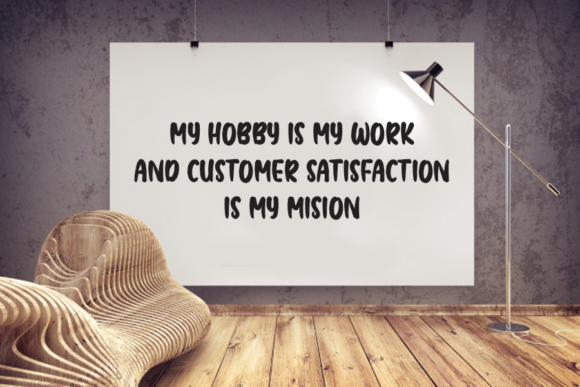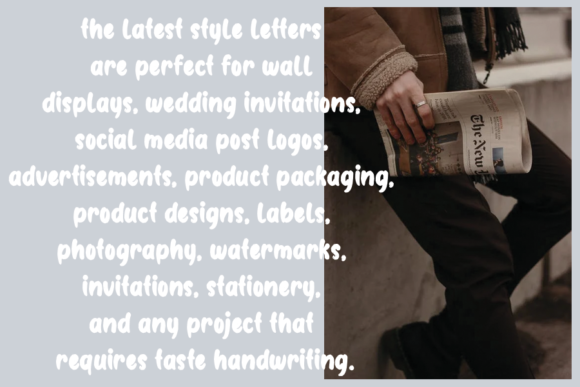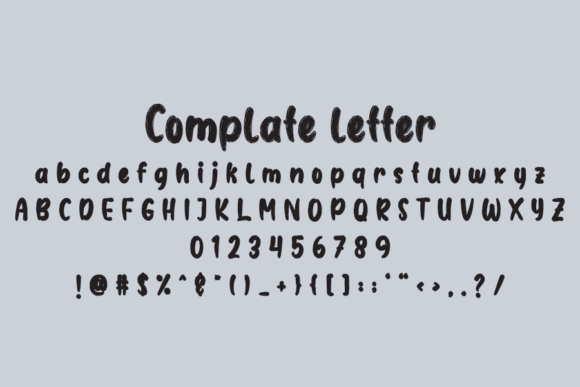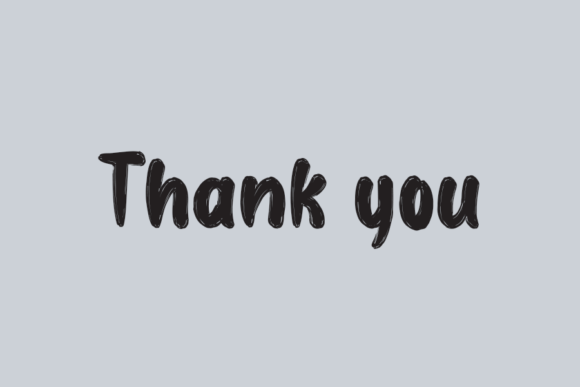
Introducing Hanymade Font: The Sweet and Friendly Handwritten Font for Your Creative Projects
Are you tired of using the same old fonts for your designs? Do you want to add a personal touch to your creations? Look no further than Hanymade Font, a sweet and friendly handwritten font that’s perfect for a wide range of design projects. With its natural and unique style, Hanymade Font is incredibly versatile and can be used for everything from branding and packaging to invitations and DIY crafts.
The Characteristics of Hanymade Font
Hanymade Font is a handwritten font that’s designed to look like it was written with love and care. Its natural and fluid strokes give it a warm and inviting feel that’s perfect for designs that require a personal touch. The font features:
- Unique and Quirky Style: Hanymade Font has a one-of-a-kind style that’s sure to make your designs stand out from the crowd.
- Natural and Fluid Strokes: The font features natural and fluid strokes that give it a warm and inviting feel.
- Perfect for Handwritten Designs: Hanymade Font is perfect for designs that require a handwritten touch, such as invitations, greeting cards, and DIY crafts.
The Benefits of Using Hanymade Font
So why should you choose Hanymade Font for your design projects? Here are just a few benefits of using this amazing font:
- Instantly Adds a Personal Touch: Hanymade Font instantly adds a personal touch to your designs, making them feel more approachable and friendly.
- Incredibly Versatile: The font can be used for a wide range of design projects, from branding and packaging to invitations and DIY crafts.
- Easily Readable: Hanymade Font is easy to read, even at small sizes, making it perfect for designs that require a lot of text.
How to Use Hanymade Font in Your Designs
Using Hanymade Font in your designs is easy! Here are a few tips to get you started:
- Pair it with Other Fonts: Hanymade Font pairs perfectly with other fonts, such as sans-serif fonts and script fonts.
- Use it for Headings and Titles: The font is perfect for headings and titles, adding a personal touch to your designs.
- Add it to Your Branding: Use Hanymade Font as part of your branding, including on your website, social media, and marketing materials.
Who is Hanymade Font for?
Hanymade Font is perfect for designers, crafters, and anyone who wants to add a personal touch to their designs. This includes:
- Graphic Designers: Graphic designers can use Hanymade Font for branding, packaging, and marketing materials.
- Crafters: Crafters can use the font for DIY projects, such as invitations, greeting cards, and scrapbooking.
- Small Business Owners: Small business owners can use Hanymade Font for their branding, website, and marketing materials.
In conclusion, Hanymade Font is a sweet and friendly handwritten font that’s perfect for designers, crafters, and anyone who wants to add a personal touch to their designs. With its natural and unique style, Hanymade Font is incredibly versatile and can be used for a wide range of design projects. So why wait? Download Hanymade Font today and start creating beautiful, handmade designs that will capture the hearts of your audience!
The only limit is your imagination! So go ahead, get creative, and show the world what you can do with Hanymade Font!